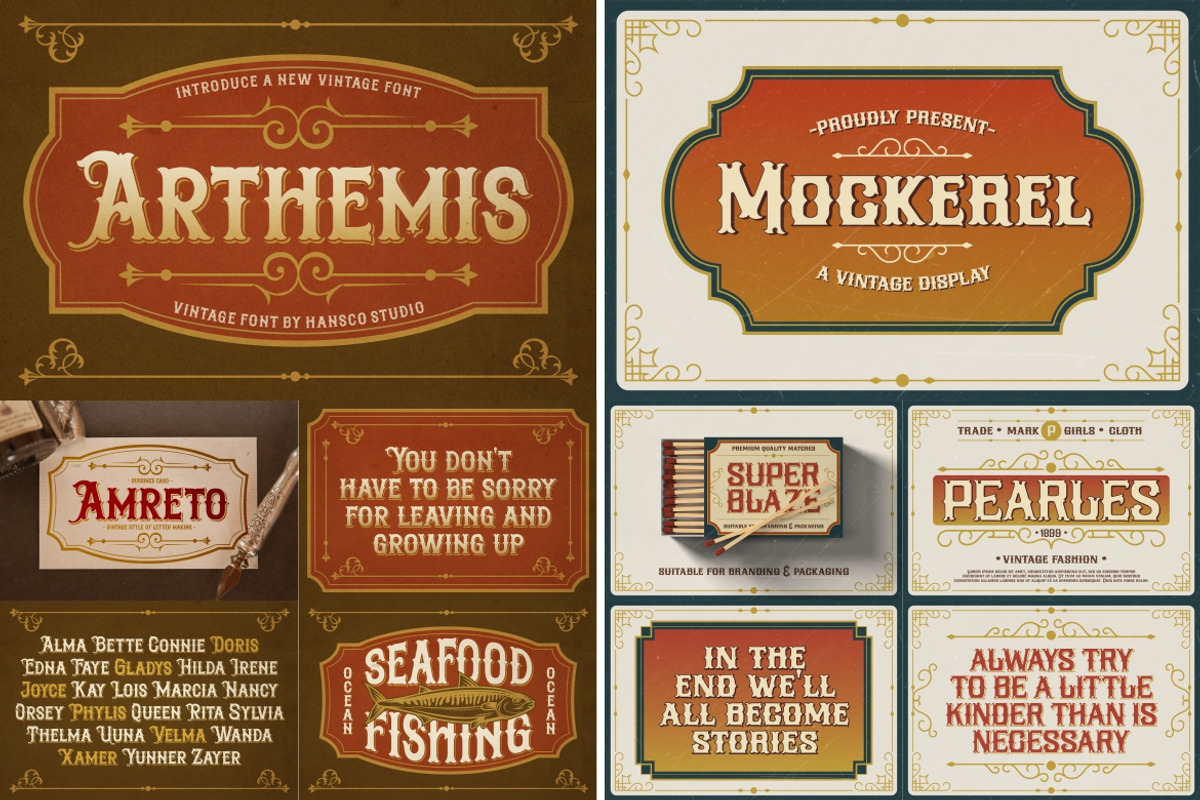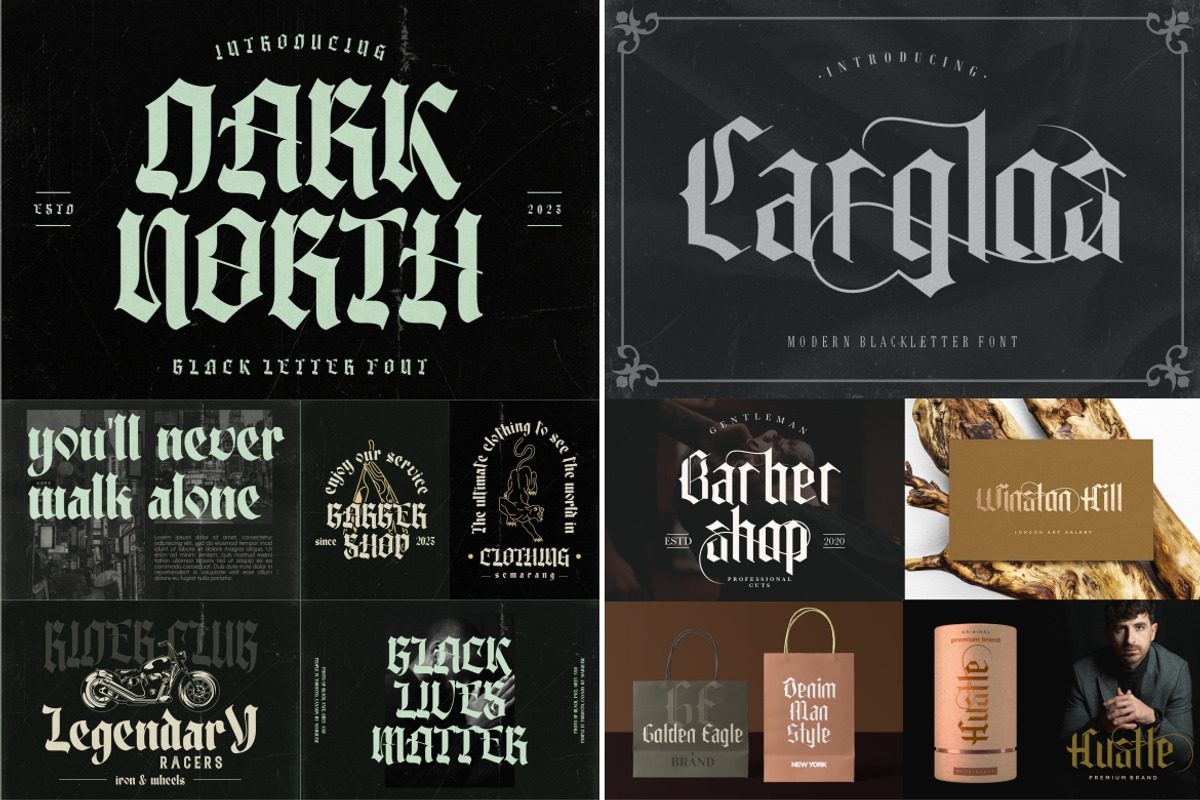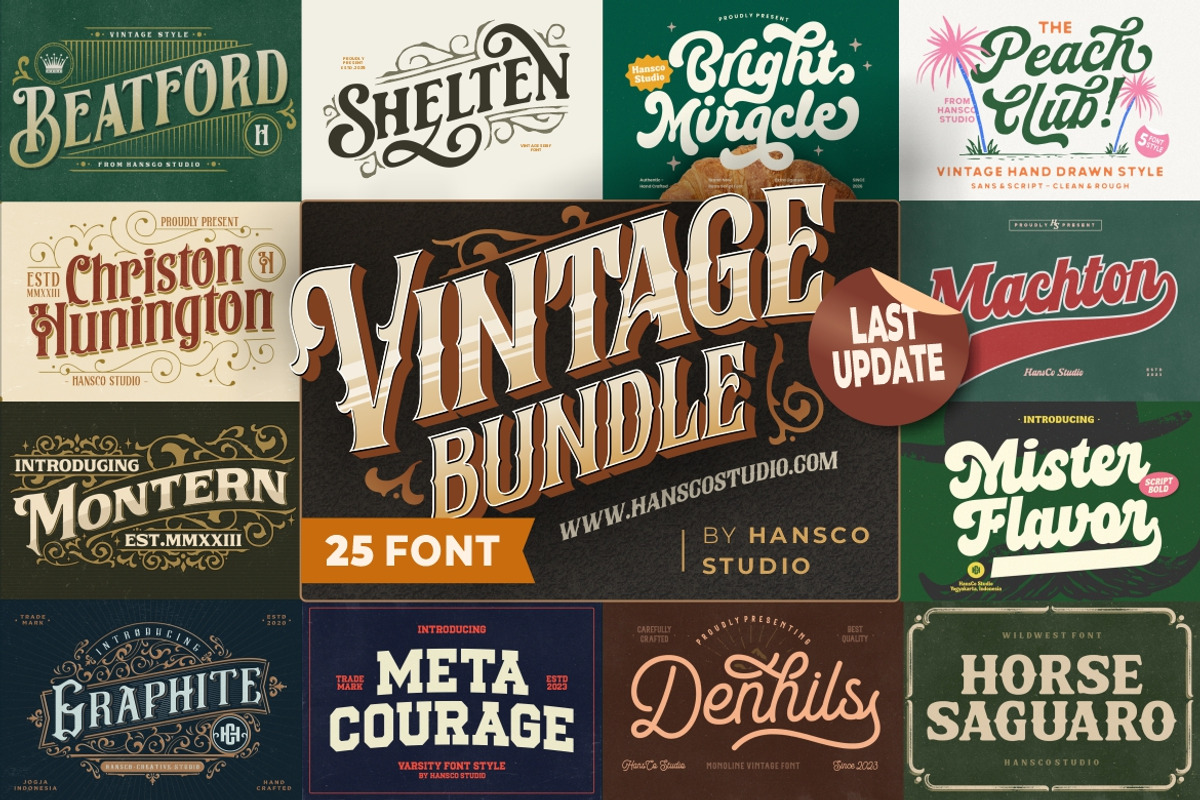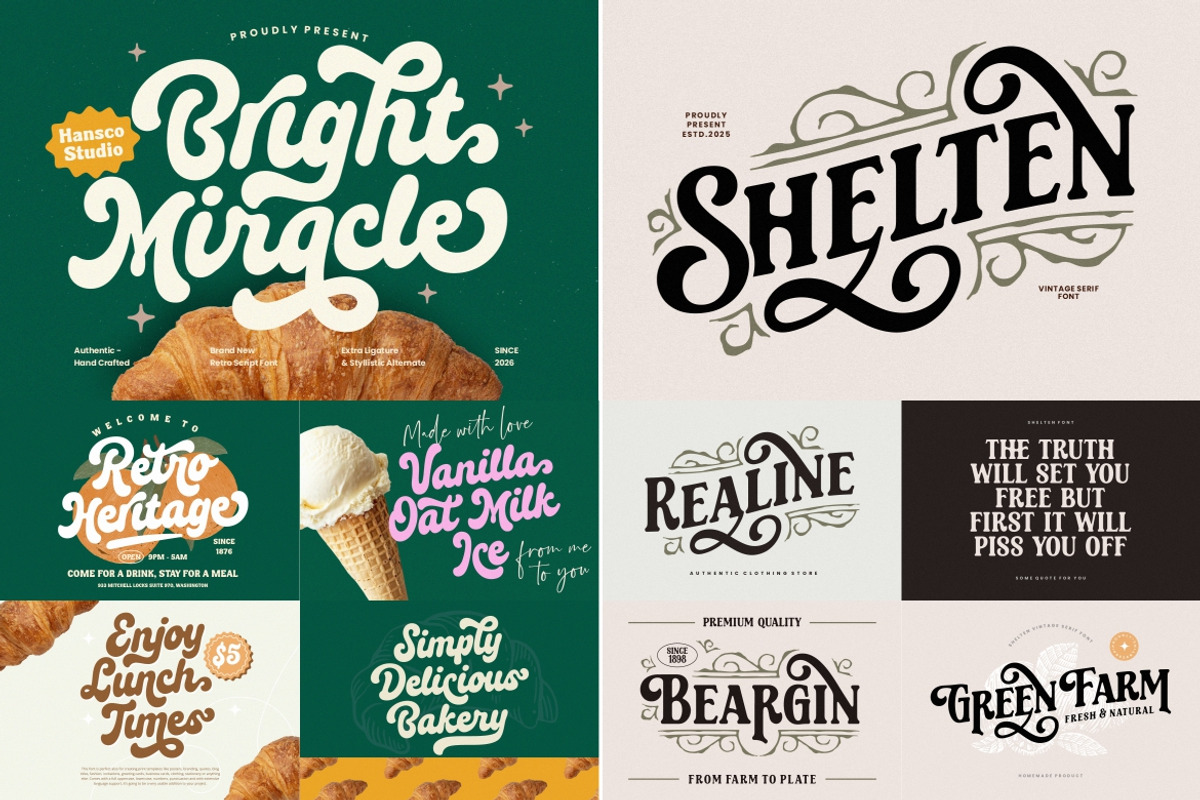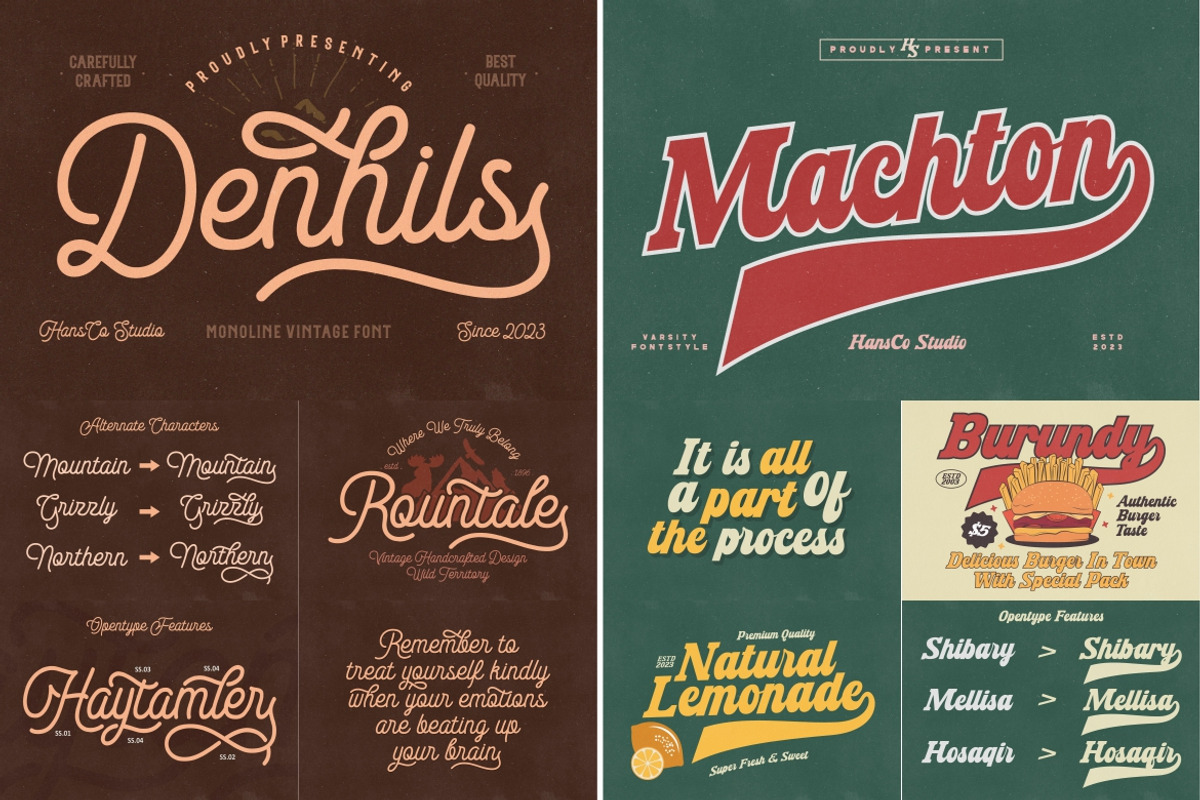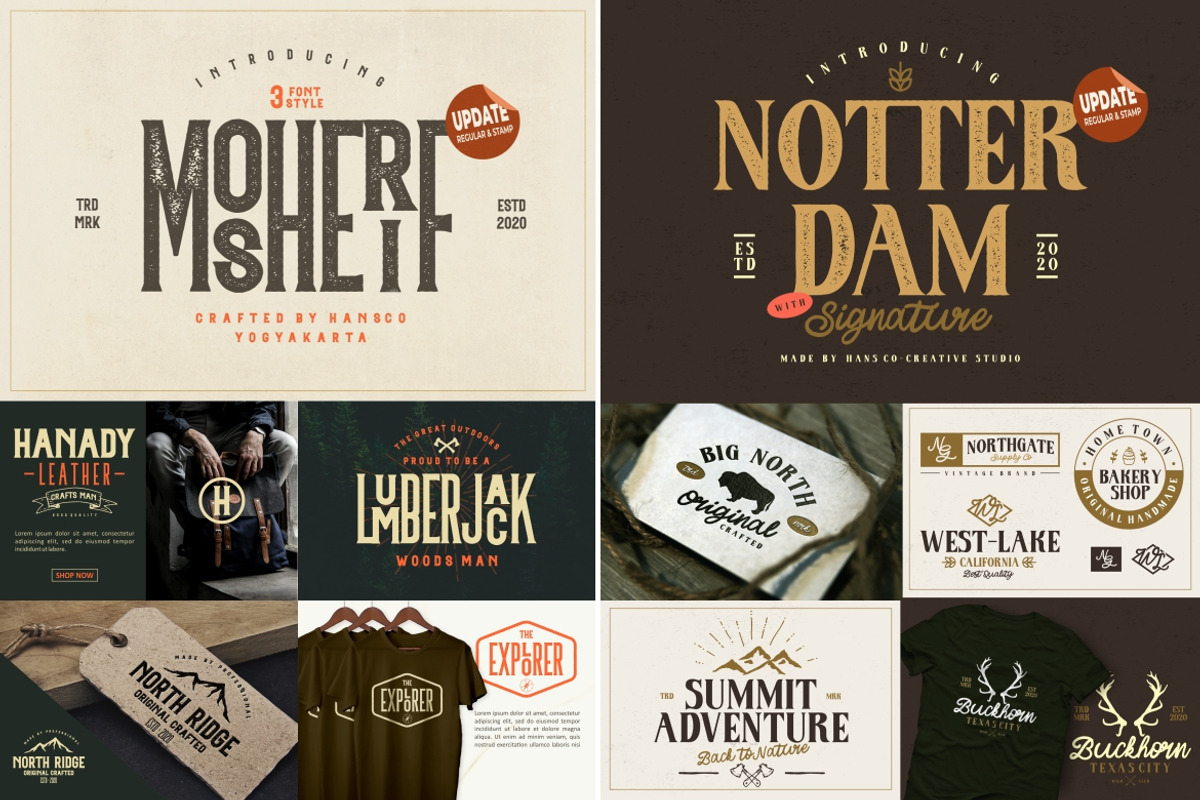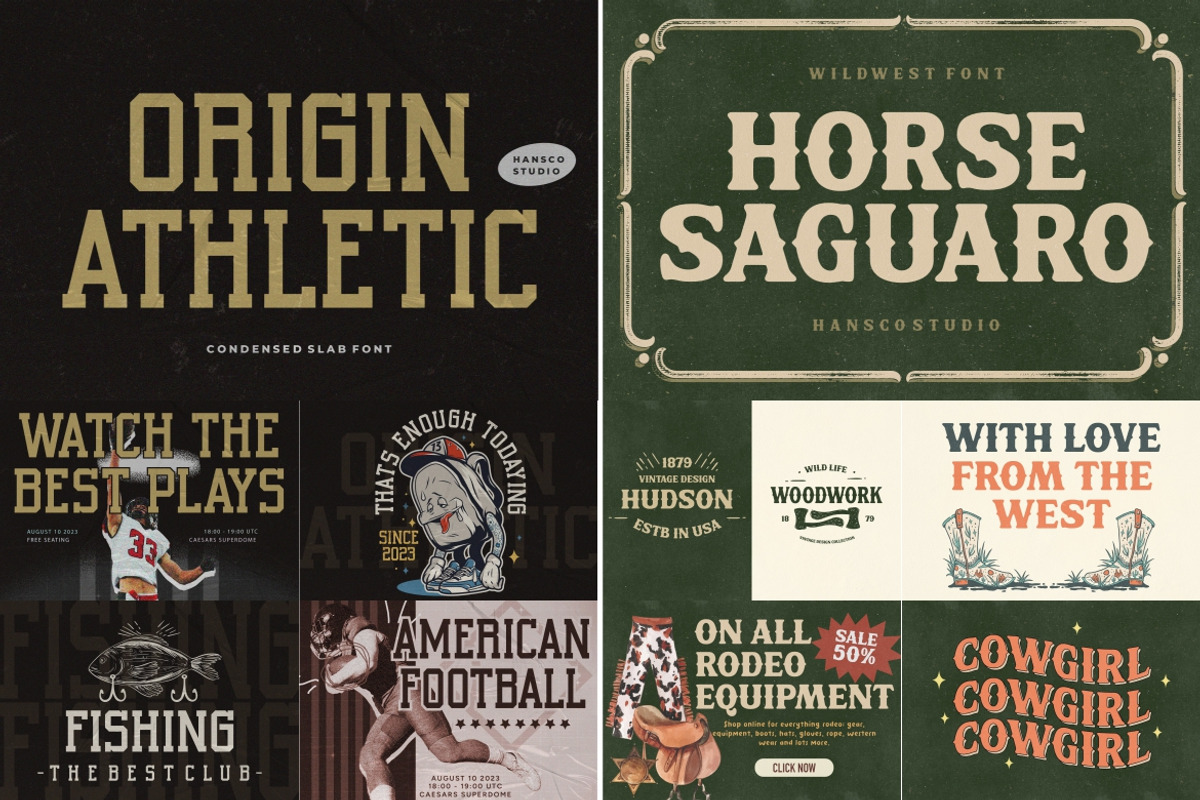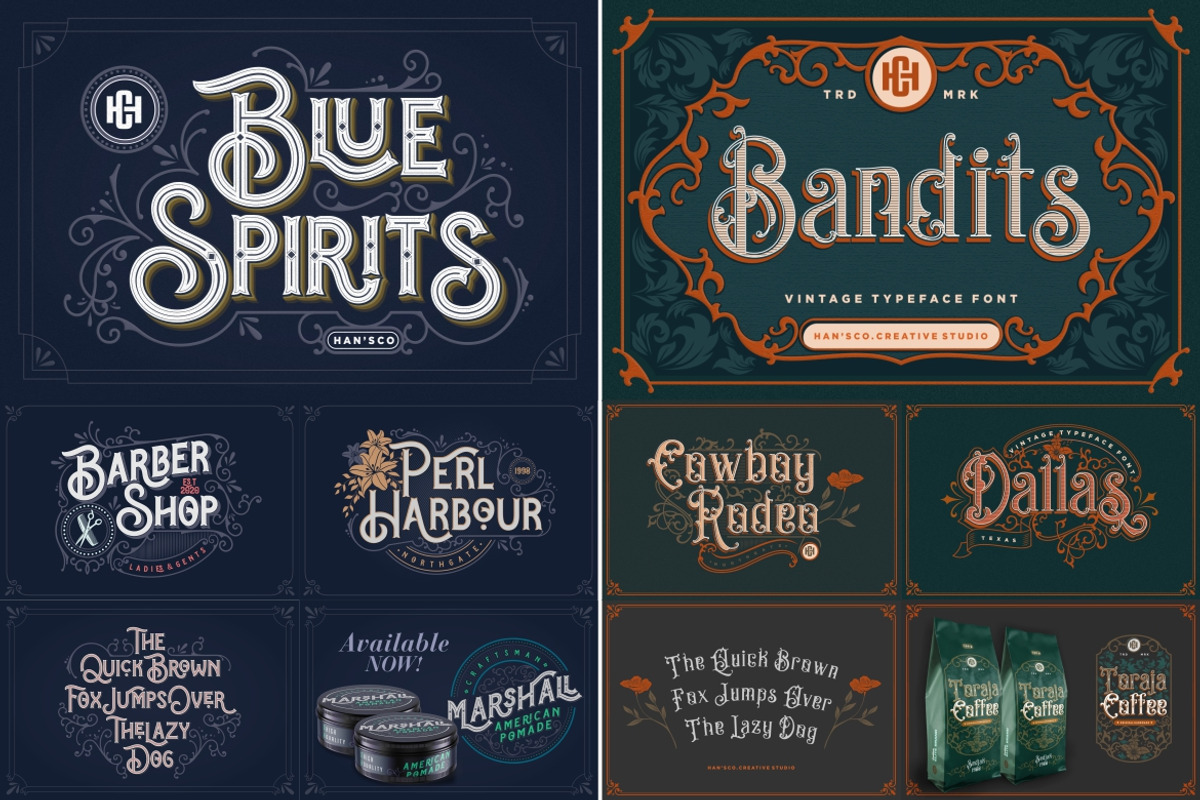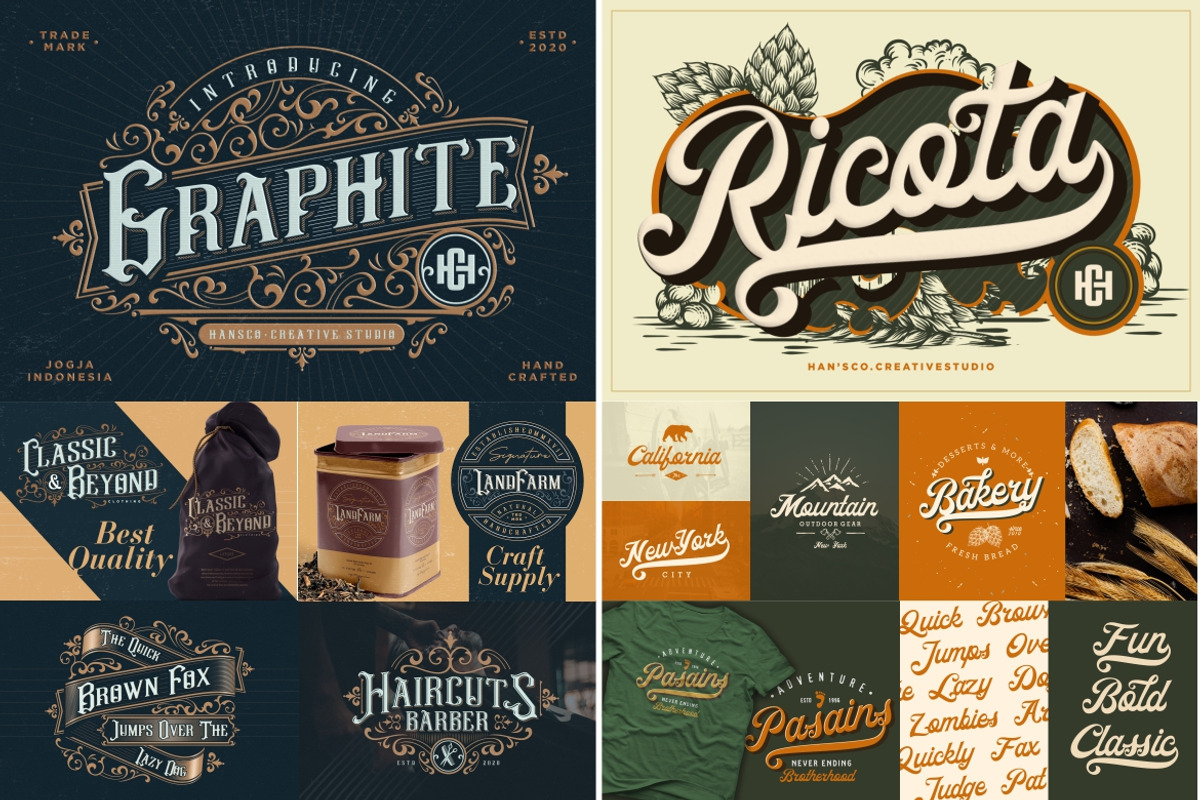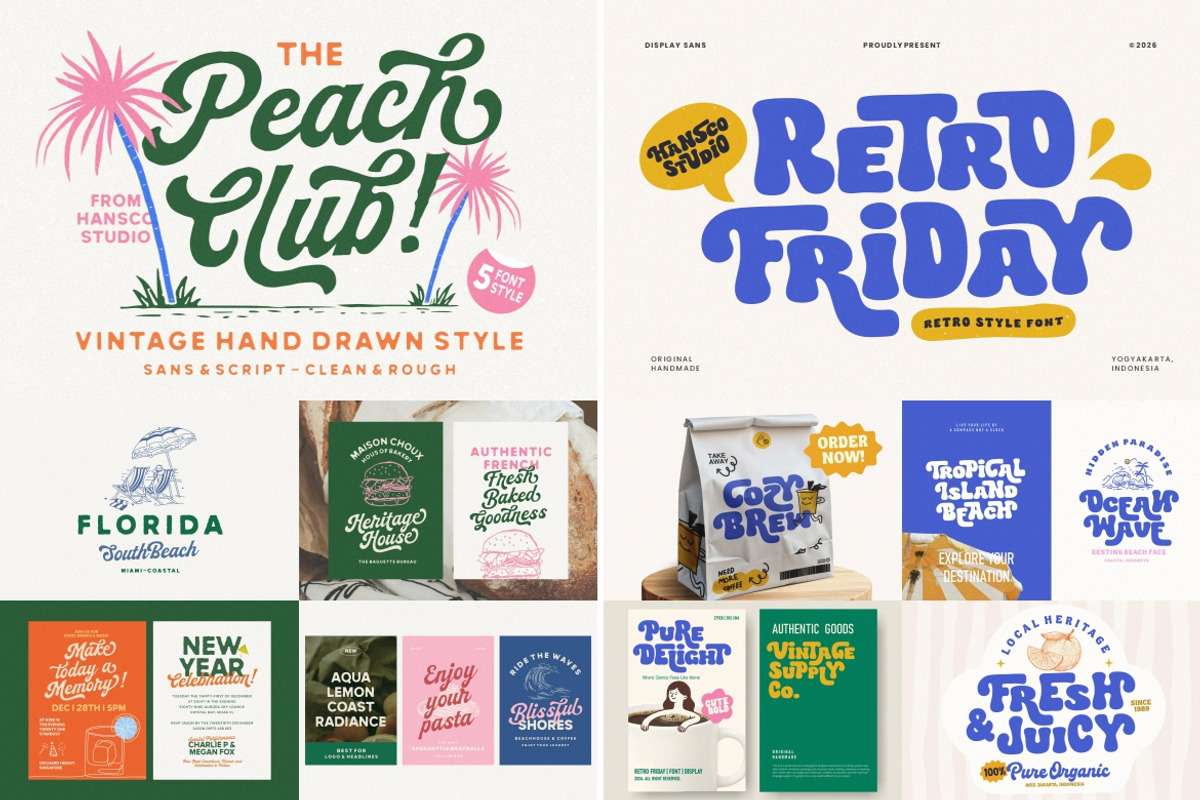
Vintage Font Bundle come with 25 best fonts. Give your designs a modern, unique and victorian feels with this bundle which is perfectly suited for logo, brand identity, packaging, book covers, t-shirts, magazine, headline, poster, advertisement and many more.
Alternate Character
Ligature
Ornament for some font